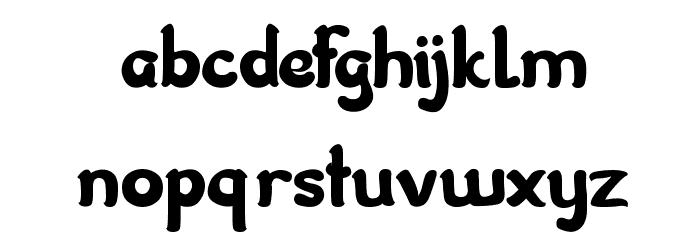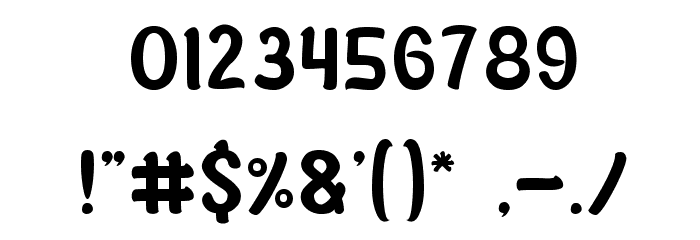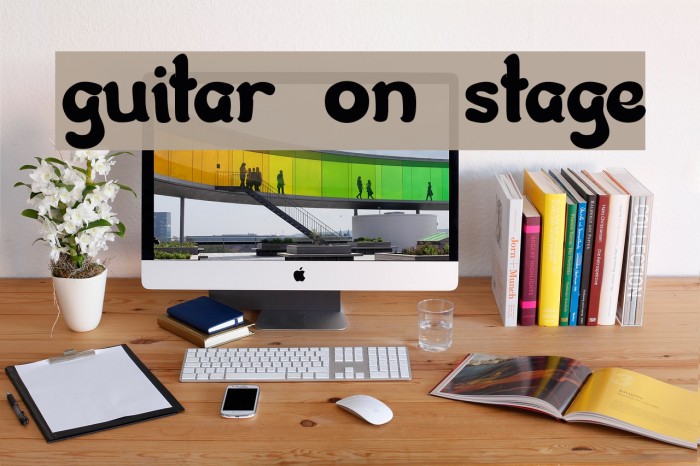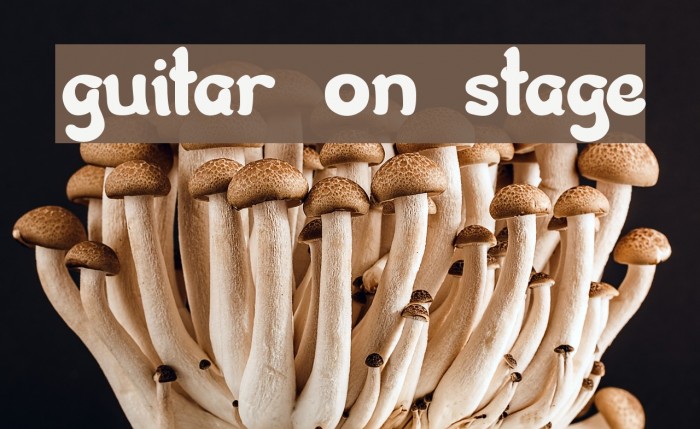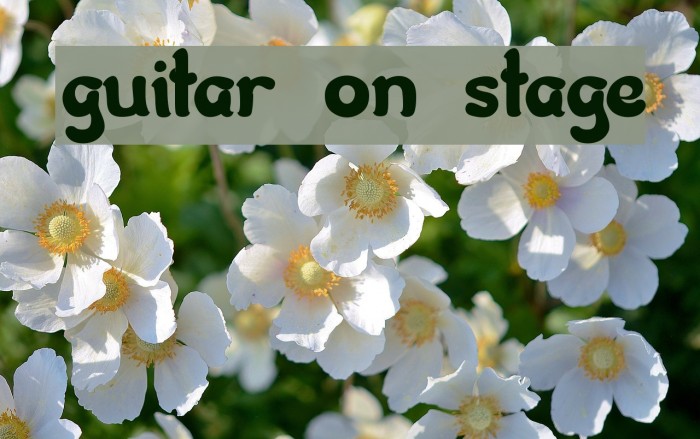
guitar on stage Font
This font features a playful and rounded style, characterized by its bold and slightly whimsical appearance. The letters have a consistent thickness, giving it a uniform look, while the rounded edges add a friendly and approachable feel. The uppercase and lowercase letters maintain a cohesive design, with the lowercase letters slightly smaller but equally bold. Numbers and special characters follow the same design principles, ensuring a harmonious overall appearance. This font is ideal for projects that require a fun and engaging aesthetic.
A playful, bold, and rounded font with a whimsical touch.
- Proposed Projects: Ideal for children's books, playful branding, posters, and greeting cards.
- Overall Style: Playful